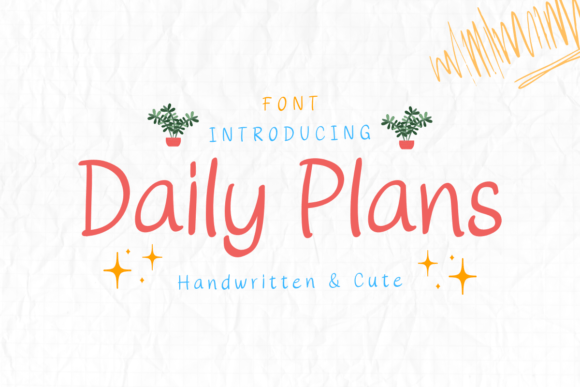
Dive into the world of Daily Plans Font, a captivating handwritten font that exudes charm and versatility. Designed by the talented Khim08Studio, this script font brings a touch of whimsy and elegance to your creative projects, making it a must-have for any design enthusiast.
Indulge in the beauty of Daily Plans Font, a symphony of graceful strokes and enchanting curves. Its intricate design adds a personal touch to your projects, evoking a sense of warmth and authenticity. Whether you're crafting heartfelt greeting cards, designing eye-catching social media posts, or personalizing your online presence, Daily Plans Font is your perfect companion.
Experience the versatility of Daily Plans Font, a font that seamlessly adapts to a myriad of applications. From creating stunning logos and branding materials to crafting personalized invitations and certificates, Daily Plans Font elevates your designs with its timeless charm. Its effortless flow and elegant presence make it ideal for crafting unique and memorable designs that leave a lasting impression.
Unleash your creativity with Daily Plans Font, a font that empowers you to transform ordinary text into captivating works of art. Its carefully crafted characters dance across the screen, adding a touch of magic to your digital creations. With Daily Plans Font, your words come alive, captivating your audience and leaving them spellbound.
Embrace the simplicity and charm of Daily Plans Font, a font that finds beauty in the ordinary. Its understated elegance adds a touch of sophistication to any project, making it perfect for creating minimalist designs with a timeless appeal. From sleek and modern branding to elegant wedding invitations, Daily Plans Font is your go-to choice for creating designs that speak volumes with their simplicity.